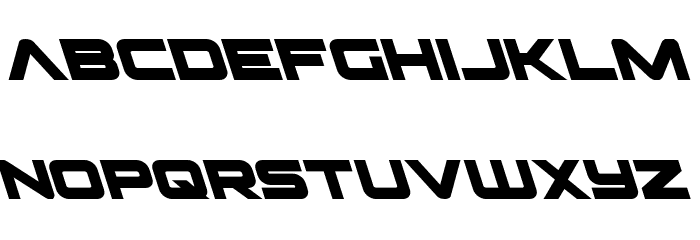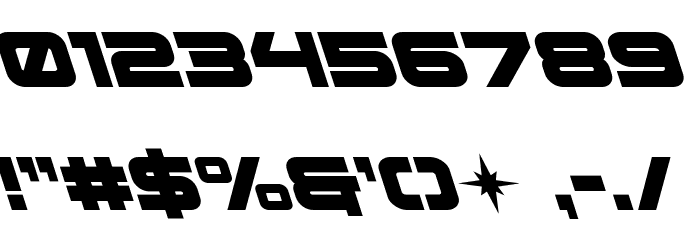
Pilot Command Super-Leftalic Font
This font features a bold, futuristic design with a distinct slant to the left, giving it a dynamic and forward-moving appearance. The characters are constructed with thick, angular strokes, creating a sense of strength and modernity. The uppercase letters are uniform in height, while the lowercase letters maintain a consistent style, enhancing readability. Numbers and special characters are designed to match the boldness and angularity of the alphabet, ensuring a cohesive look across all characters. The overall style is reminiscent of sci-fi or tech themes, making it suitable for projects that require a modern and edgy aesthetic.
A bold, futuristic font with angular strokes and a leftward slant.
- Font: Pilot Command Super-Leftalic
- Proposed Projects: Ideal for sci-fi movie posters, tech branding, video game titles, and futuristic event flyers.